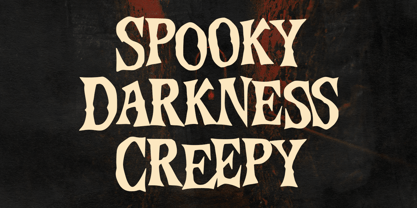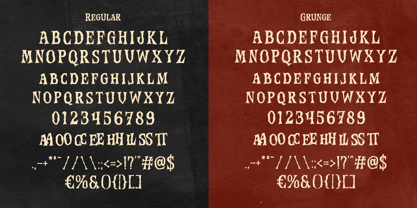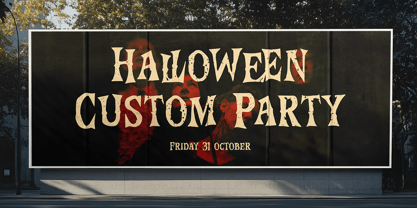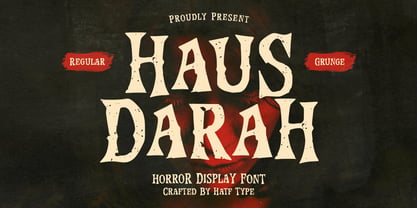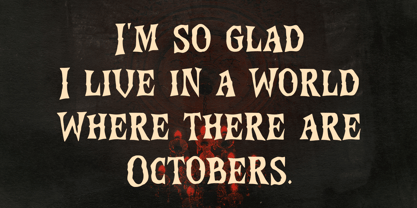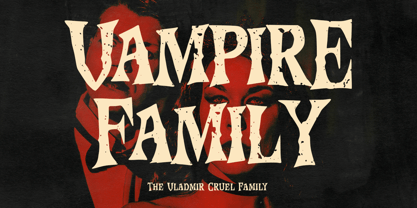
Haus Darah
by Hatftype
The Haus Darah Font Family was designed by Asep Rendi and published by Hatftype. Haus Darah contains 2 styles and family package options. More about this family
When darkness falls and a chill begins to creep into the air, "Haus Darah" appears, a horror display font born from the darkest shadows. This font was created for those who want to create real fear, not just decoration, but a visual experience that pierces with terror with every glance.
The letterforms are inspired by dripping blood, gaping wounds, and graffiti seemingly torn from mysterious walls. "Haus Darah" represents a sense of anxiety, horror, and tension that can never be ignored.
This font comes in two distinct, complementary styles:
Regular – provides a bold, clean, and clear look. Suitable for use as a main title in posters, covers, or horror-themed branding that requires a dramatic impact without compromising readability.
Grunge – creates a wilder, textured, and chaotic atmosphere. This style seems to transport each letter into a dark, torn world, covered in dirt and blood, creating a brutal and suspenseful impression.
With "Haus Darah", you can create a gripping atmosphere for various purposes:
Horror movie posters that demand a spooky and thrilling effect.
Halloween party invitations that aim to captivate attention with horror.
Album covers for metal, gothic, or punk music that demand wild energy and intense emotion.
Mystical and horror-themed merchandise, from t-shirts and stickers to digital designs.
Game titles filled with darkness, blood, and dread.
Each letter in "Haus Darah" is not just a symbol, but a story one of interrupted screams, footsteps chasing in the dark, and an insatiable thirst. This font isn't just typography, but a gateway to a world of profound horror, deeply imprinted in the minds of anyone who sees it.
If you're looking for a font that can make your designs more than just look scary but truly chilling then "Haus Darah" is the perfect answer.
Designers: Asep Rendi
Foundry: Hatftype